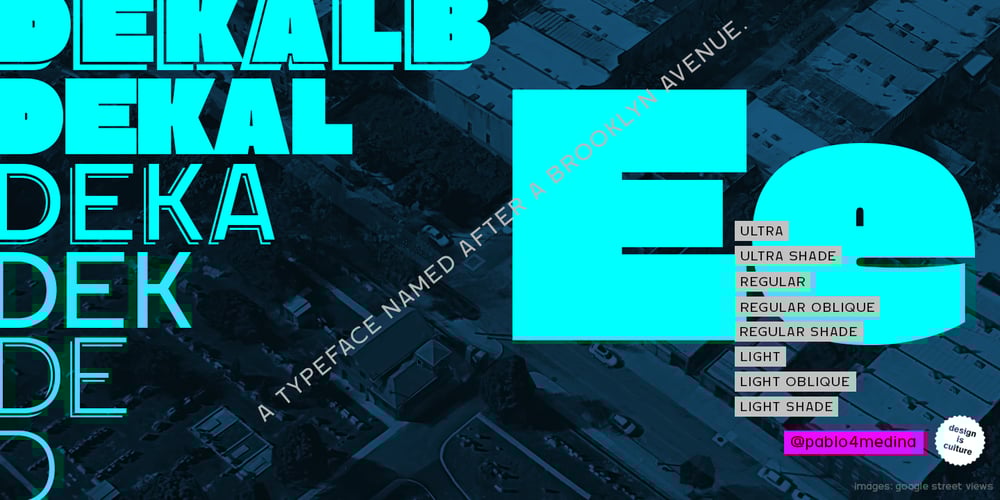
Dekalb Font Family was designed by Pablo A. Medina and published by Design is Culture. Dekalb contains 8 styles and family package options. The idea for the typeface Dekalb was born in 2013 after a day of photographing signage, murals and graffiti around Dekalb and Wyckoff avenues in Bushwick, Brooklyn. The initial drafts of the letterforms were first made into a single ultra-weight font that I used while working as the Creative Director for Sneaker News Magazine. After having made its first appearance in Sneaker News, I decided to expanded Dekalb to an eight style family.